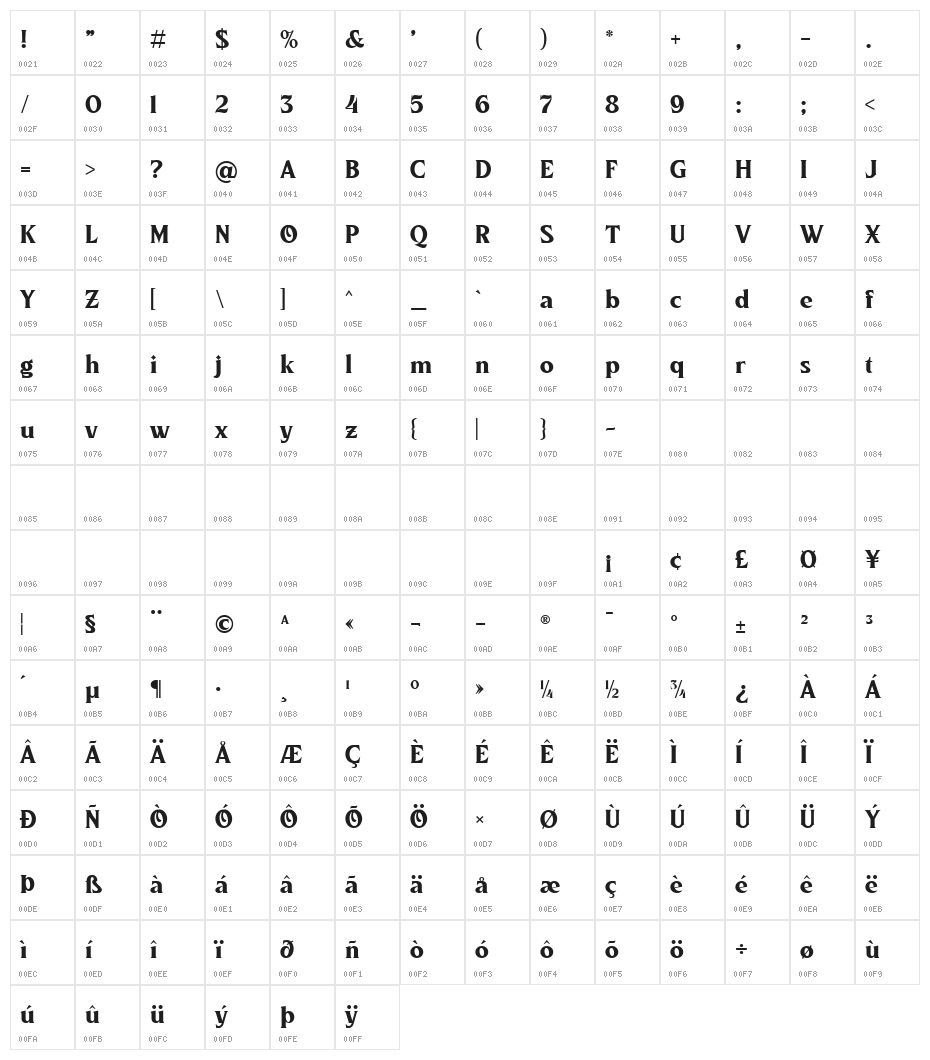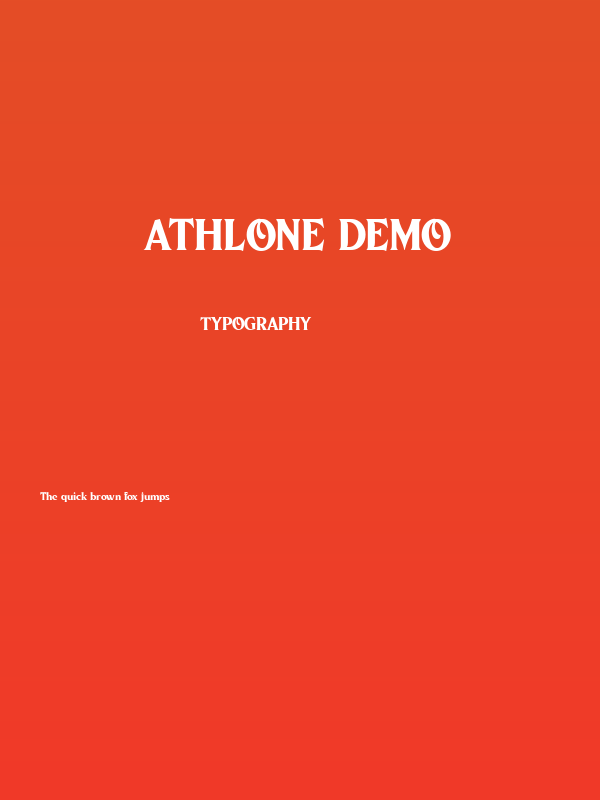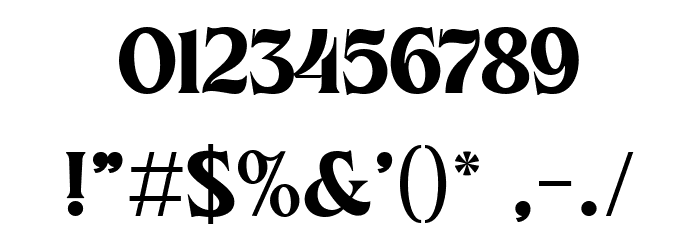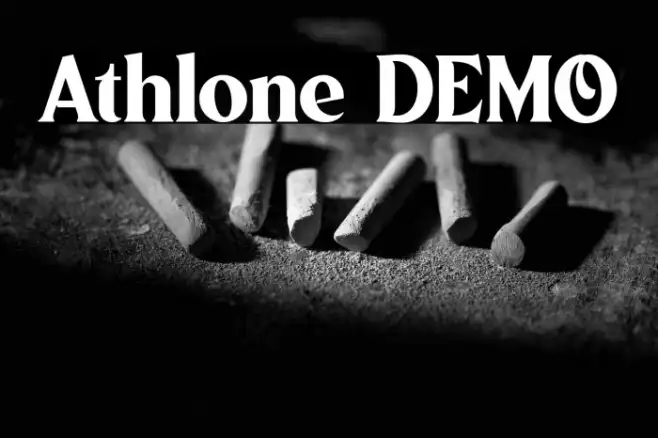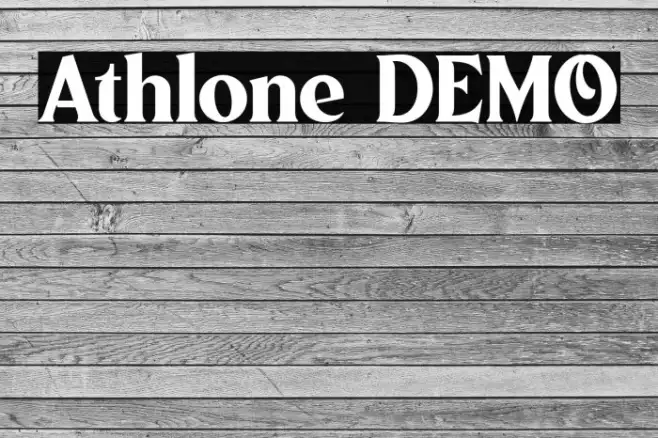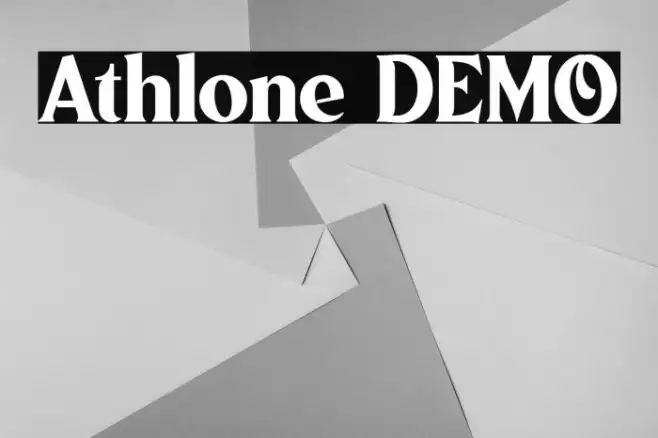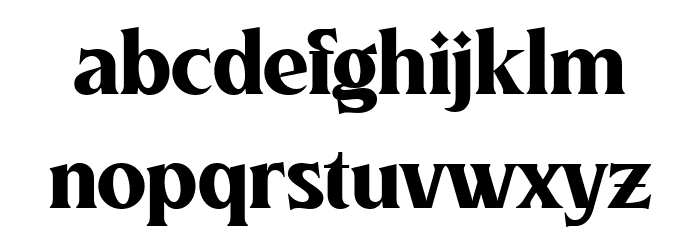
Athlone DEMO Font
Athlone DEMO Description
This font features a bold and dramatic style with high contrast between thick and thin strokes, giving it a strong and commanding presence. The serifs are pronounced and sharp, adding a touch of elegance and sophistication. The uppercase letters are particularly striking, with a slightly condensed form that enhances their impact. The lowercase letters maintain the boldness and are well-balanced, making them suitable for both display and text purposes. The numerals are consistent with the overall style, ensuring readability while maintaining the font's distinctive character. Special characters are designed with the same attention to detail, making this font versatile for various applications.